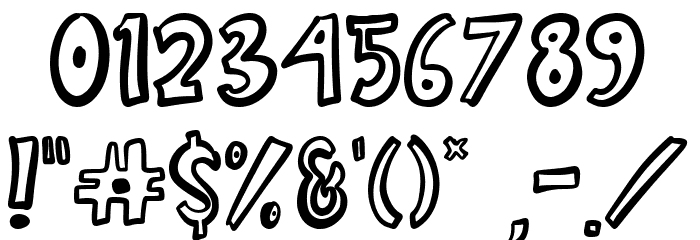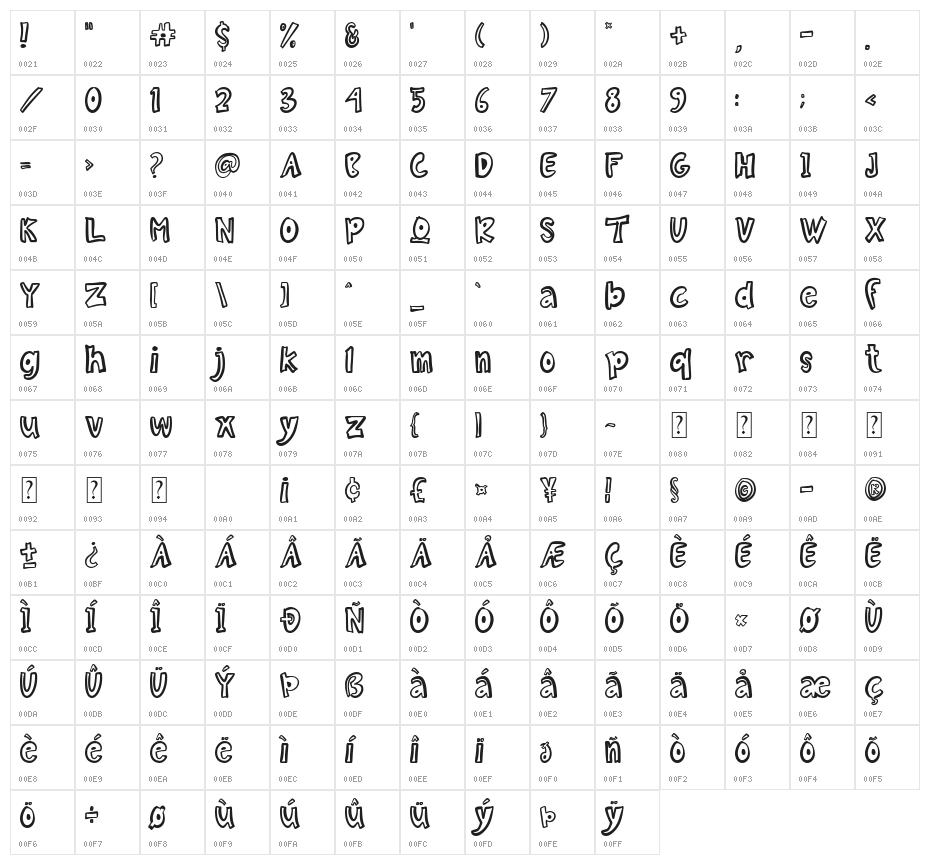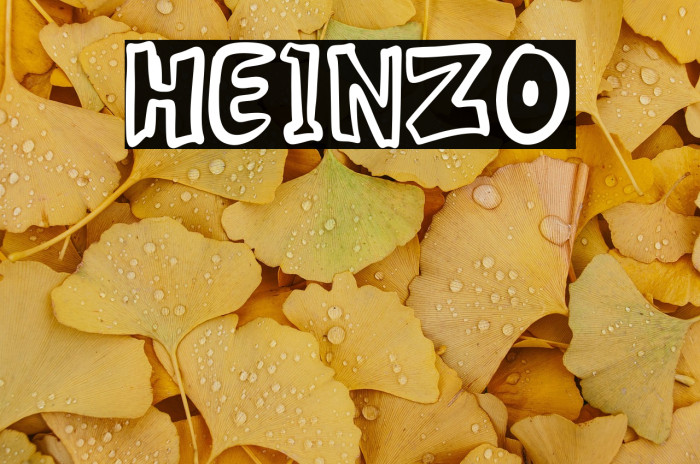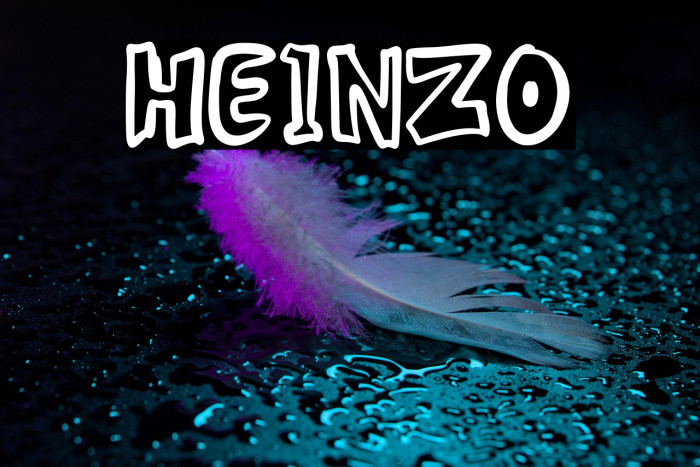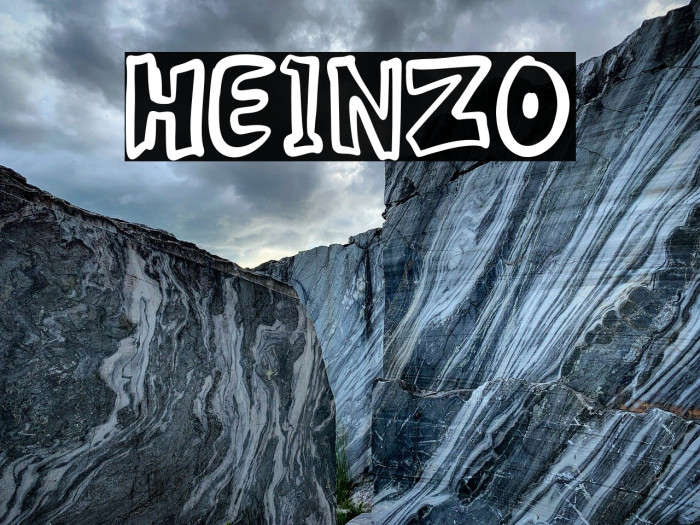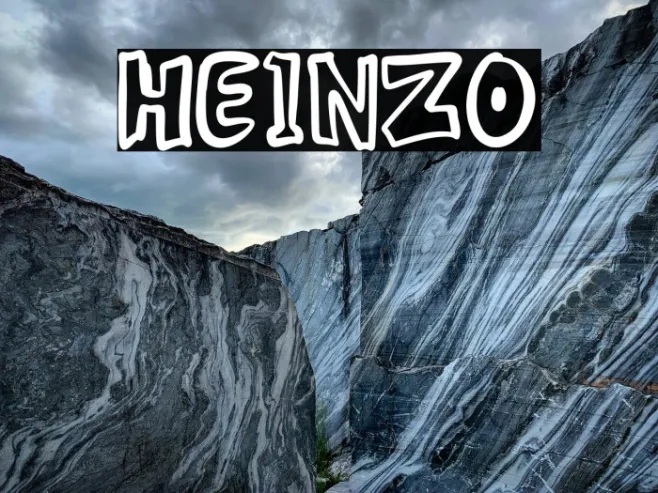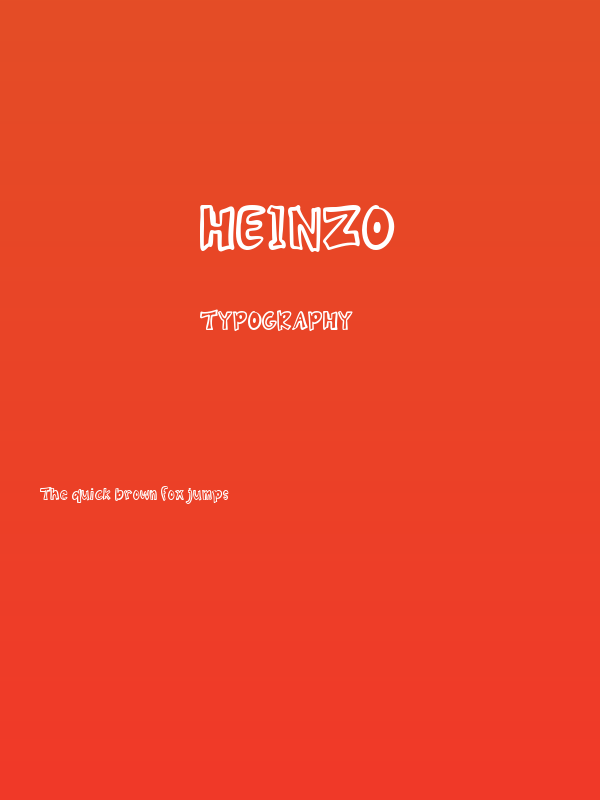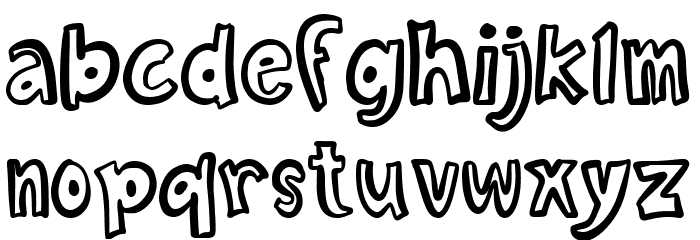
HEINZO Font
HEINZO Description
This playful and bold font features a hand-drawn, cartoonish style with thick outlines and exaggerated curves. Each character is uniquely crafted, giving the font a lively and informal appearance. The uppercase and lowercase letters maintain a consistent style, with rounded edges and a slightly uneven baseline that adds to the whimsical feel. Numbers and special characters are equally expressive, ensuring a cohesive look across all text elements. The font's design is perfect for capturing attention and conveying a sense of fun and creativity.
| Proposed Projects | Ideal for children's books, comic strips, playful branding, and creative posters. |